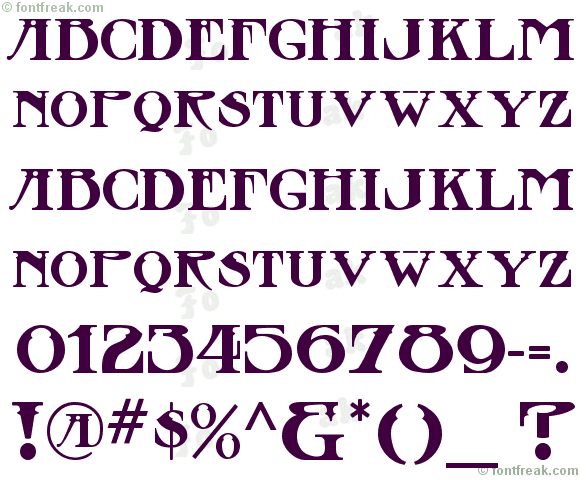
Stowaway
About Stowaway
The Stowaway font, designed by Richard Mueller in 1993, is a striking display typeface that captivates with its unique blend of decorative elements and bold character. This freeware font showcases a distinct serif style, characterized by its pronounced stroke weight and playful design. The contrast between thick and thin lines adds a dynamic feel, making it an eye-catching choice for various creative projects. The spacing is well-balanced, allowing for legibility while maintaining a stylish flair.
Stowaway is ideal for a variety of applications, including wedding invitations where its elegant curves can enhance the romantic tone. It also works beautifully on movie posters, adding a sense of drama and intrigue that captures attention. Restaurant menus can benefit from its artistic flair, making dishes appear more appealing and sophisticated. Additionally, the font is perfect for branding projects, especially for small businesses looking to convey a creative and memorable identity. Graphic designers and content creators will find this font particularly useful for adding a unique touch to their work.
The target audience for Stowaway includes graphic designers, small business owners, and anyone engaged in creative endeavors who seek to stand out with their typography. This font not only offers aesthetic appeal but also versatility, making it a valuable addition to any designer's toolkit.
What truly sets the Stowaway font apart is its ability to blend playful elegance with bold design, capturing a sense of creativity that is often missing in more conventional typefaces. Whether you are looking to make a statement or simply add a touch of flair to your project, the Stowaway font free download is an excellent choice that will elevate your designs.